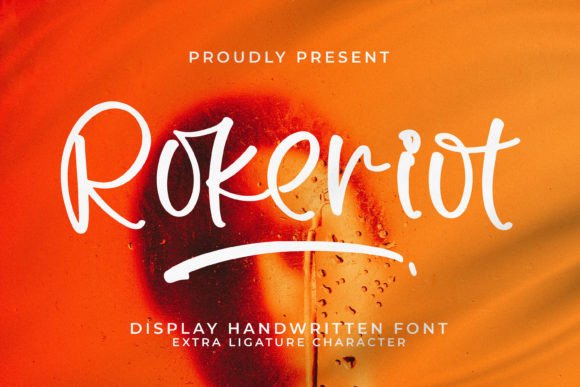
Dive into the world of Rokeriot Font, where artistry and elegance intertwine. This exquisite handwritten font is crafted to bestow a touch of sophistication and charm upon your creative endeavors. Let Rokeriot's graceful strokes dance across your designs, captivating hearts and leaving an indelible mark. Allow yourself to be swept away by its enchanting beauty, for within its curves and flourishes lies the power to transform the ordinary into the extraordinary.
Rokeriot Font is not just a collection of letters; it's an expression of imagination, a symphony of lines that evoke emotion and create an ambiance of understated luxury. Its script style is an ode to the art of penmanship, reminiscent of handwritten love letters that spoke of passion and longing. This font is a storyteller, a weaver of tales that unfold with every word you type, and a creator of memories that will be cherished for a lifetime.
With Rokeriot Font, you're not simply designing; you're creating a visual masterpiece that will leave a lasting impression. Envision your wedding invitations adorned with its elegant script, conveying the depth of your love in every letter. Picture your brand's logo, infused with Rokeriot's timeless grace, becoming a symbol of excellence and sophistication. Imagine your homeware designs, packaging, and products adorned with its enchanting strokes, transforming them into objects of desire.
Rokeriot Font is more than just a font; it's an experience. It's a journey into the realm of creativity, where boundaries melt away and possibilities ignite. Its versatility knows no bounds, adapting effortlessly to any project you envision. Whether you're a seasoned designer or just starting your creative journey, Rokeriot Font will be your trusted companion, guiding you towards design excellence.
So, embark on this extraordinary adventure with Rokeriot Font, the font that captivates hearts and ignites imaginations. Let its beauty flow through your veins, inspiring you to create designs that whisper elegance, exude grace, and leave an unforgettable legacy. Rokeriot Font is the key to unlocking your creative potential and transforming your dreams into tangible works of art. Embrace its magic and watch as your designs blossom into masterpieces that will be admired and cherished for generations to come.